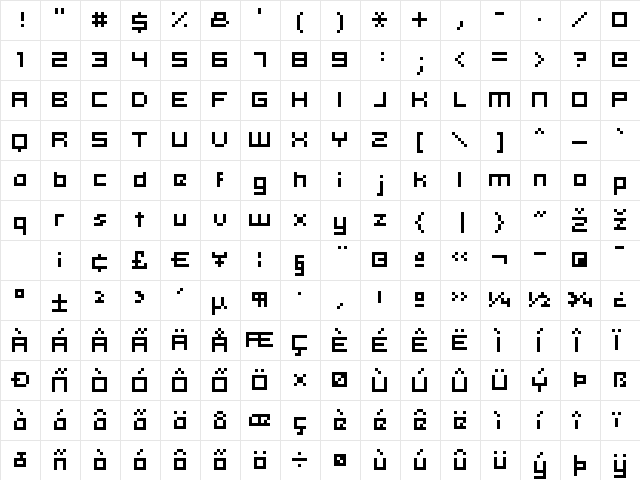
hooge 05_53 Regular Font Preview
hooge 05_53 Regular
hooge 05_53 Regular Font Details
| Designer | Craig Kroeger |
Design Context for hooge 05_53 Typeface
hooge 05_53 takes a measured approach to typography — its balanced proportions and neutral character make it a reliable workhorse for both digital and print work.